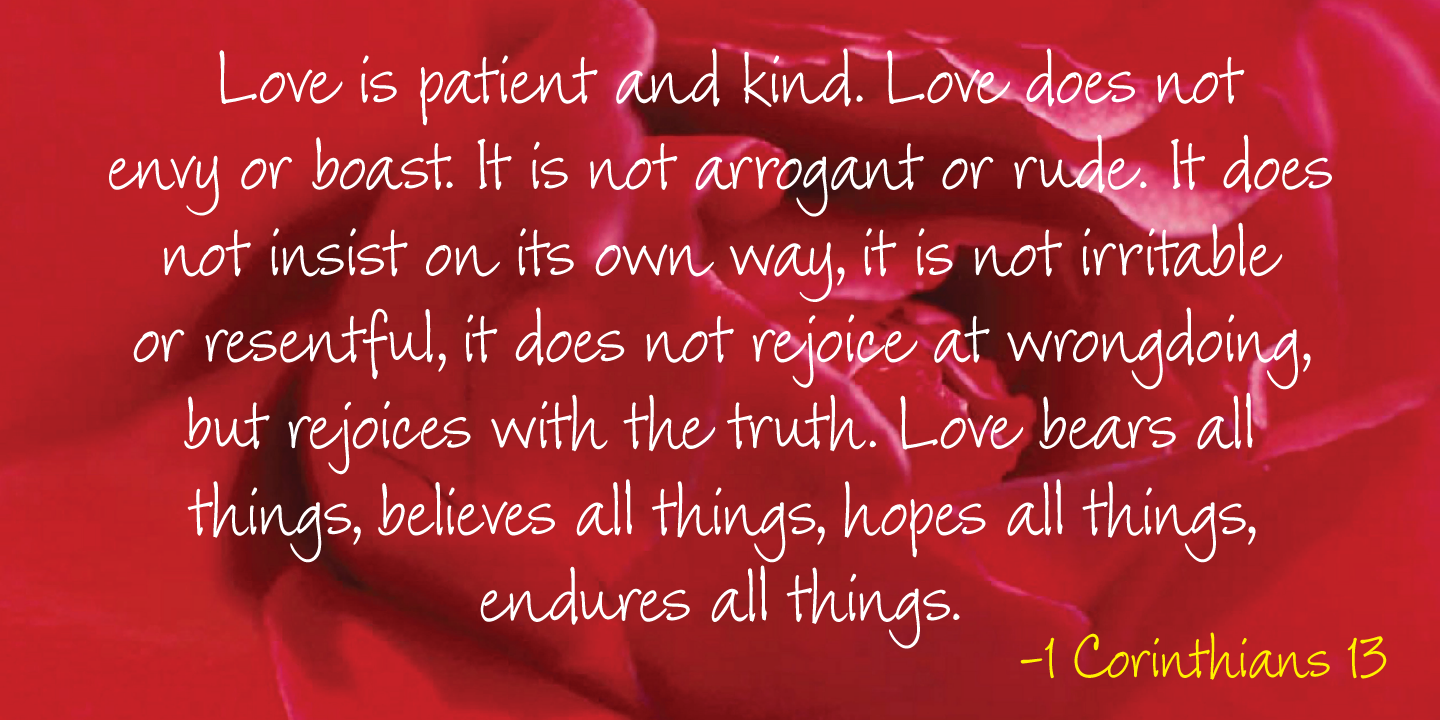
Bring authentic handwritten warmth to your designs with My Write Hand BF Font Free Download – a charming, natural-looking script that captures the personal touch of real penmanship. This versatile font mimics the organic flow of casual handwriting, perfect for projects needing approachable elegance and personal connection.
Why My Write Hand BF Stands Out
True-to-life handwriting variations
Natural letter connections and ink effects
Perfect balance of casual and refined
Multiple contextual alternates for realism
Complete uppercase and lowercase characters
Personal Touch Applications:
Handwritten notes and cards
Creative journal layouts
Artisan product packaging
Social media quote graphics
Invitations and announcements
Design Tip: Vary your baseline and rotation slightly (-2° to +2°) for maximum authentic handwritten effect!